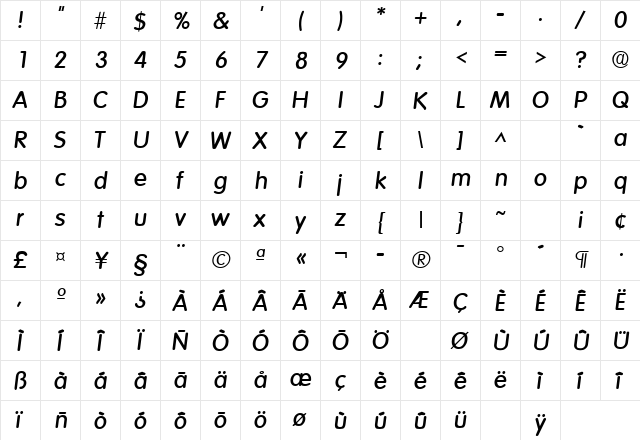
Volkswagen Bold Italic
Design Context for Volkswagen Typeface
Volkswagen is a composed and adaptable typeface that performs quietly and consistently across a wide range of design contexts. The slanted form adds forward momentum and visual energy. The heavy weight commands attention and anchors typographic hierarchies.
Pro Tip: Use Volkswagen for emphasis, pull quotes, and subheadings where its slanted energy can add rhythm to the layout.